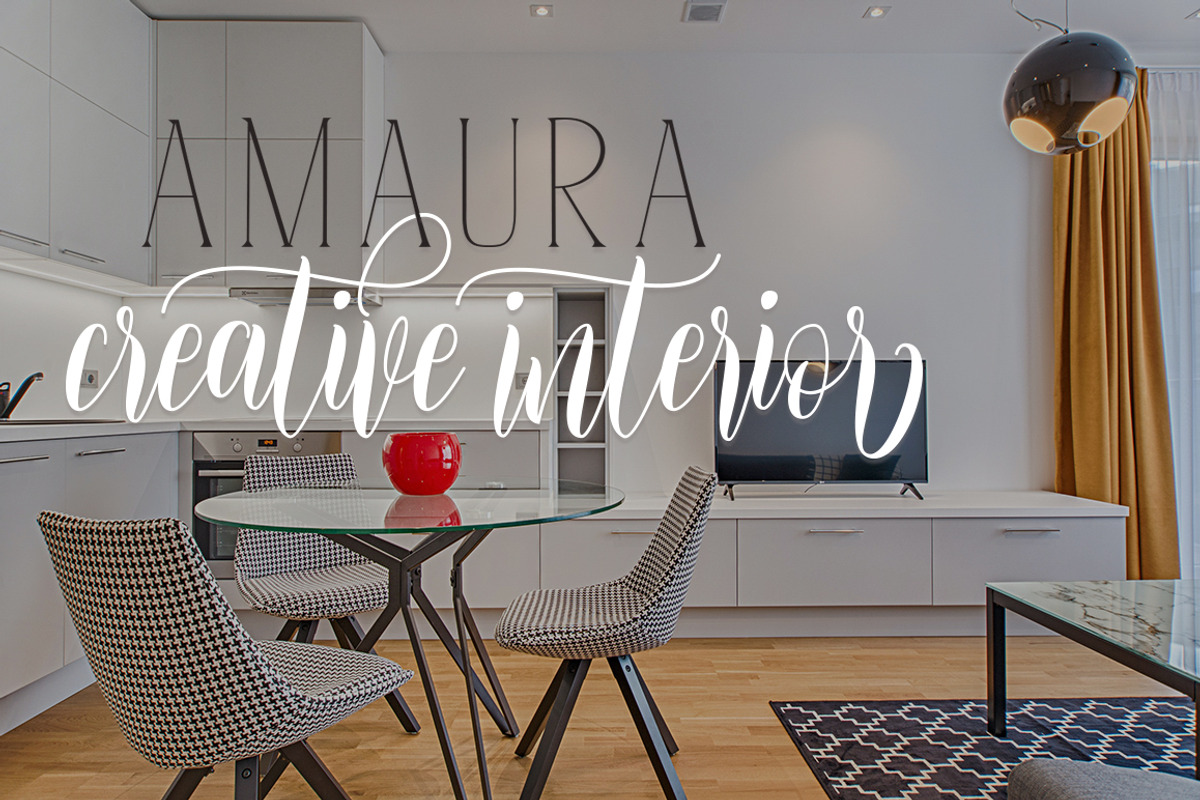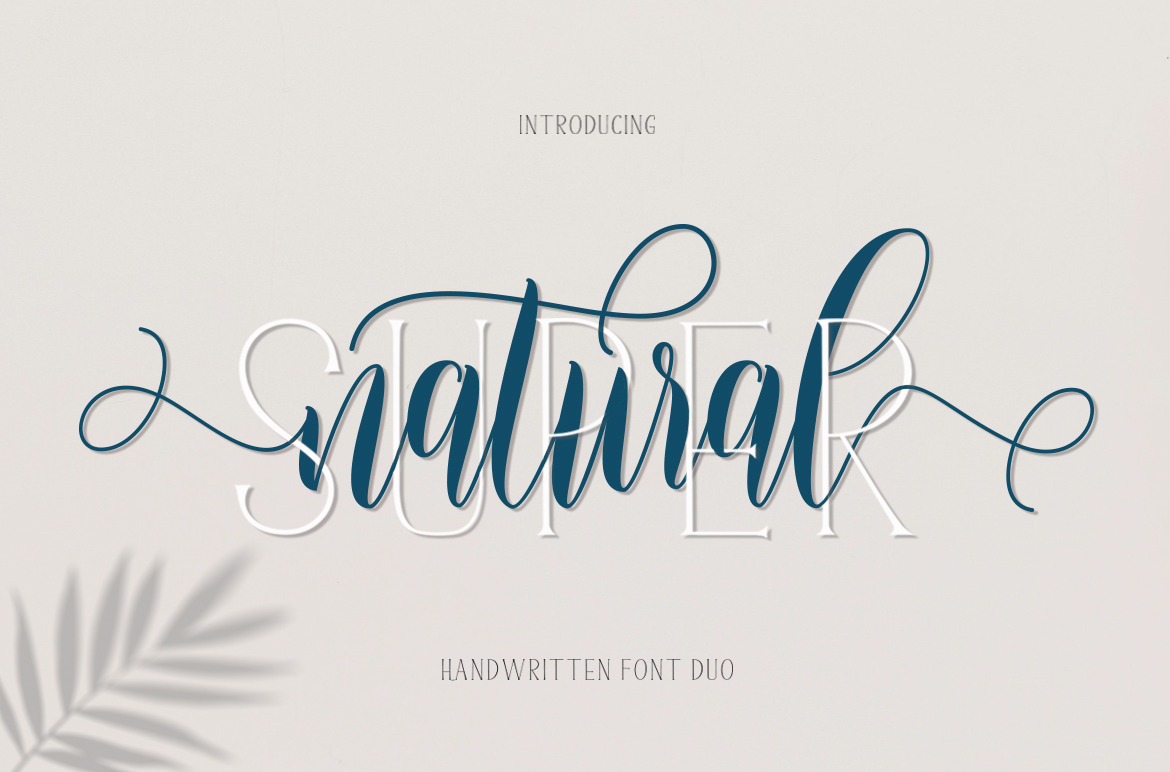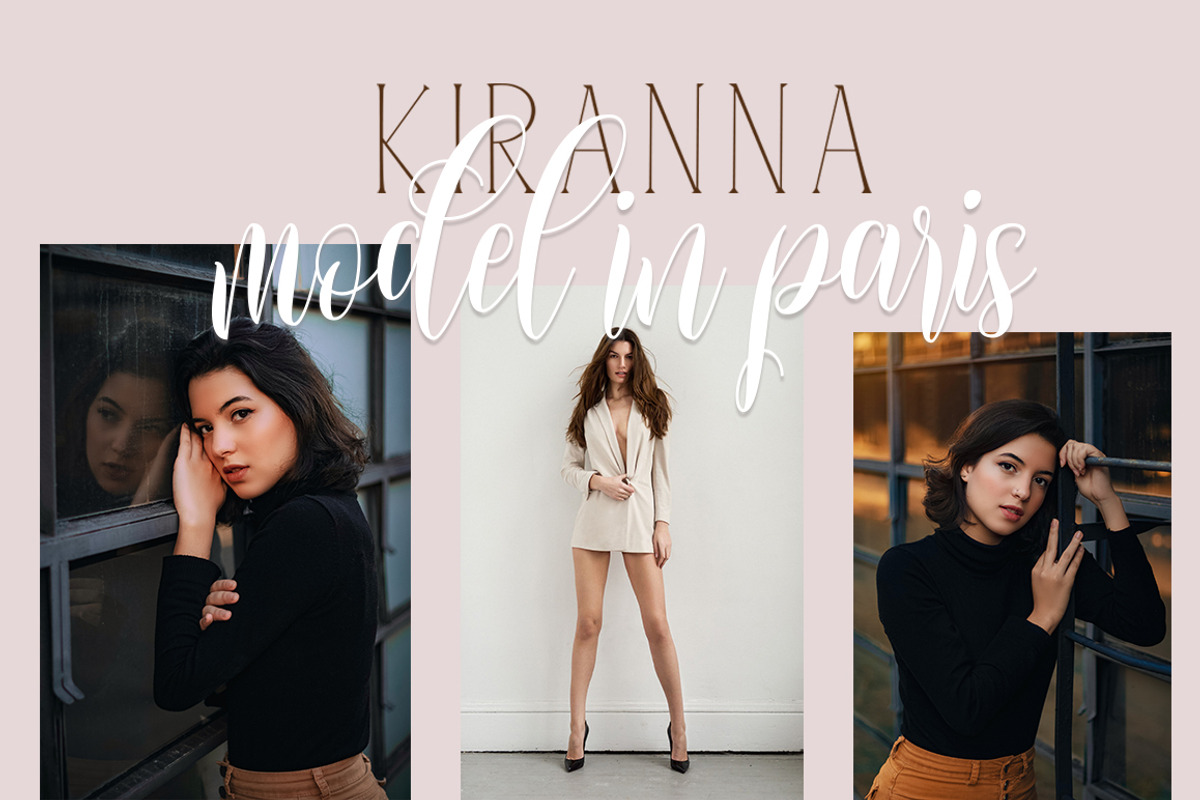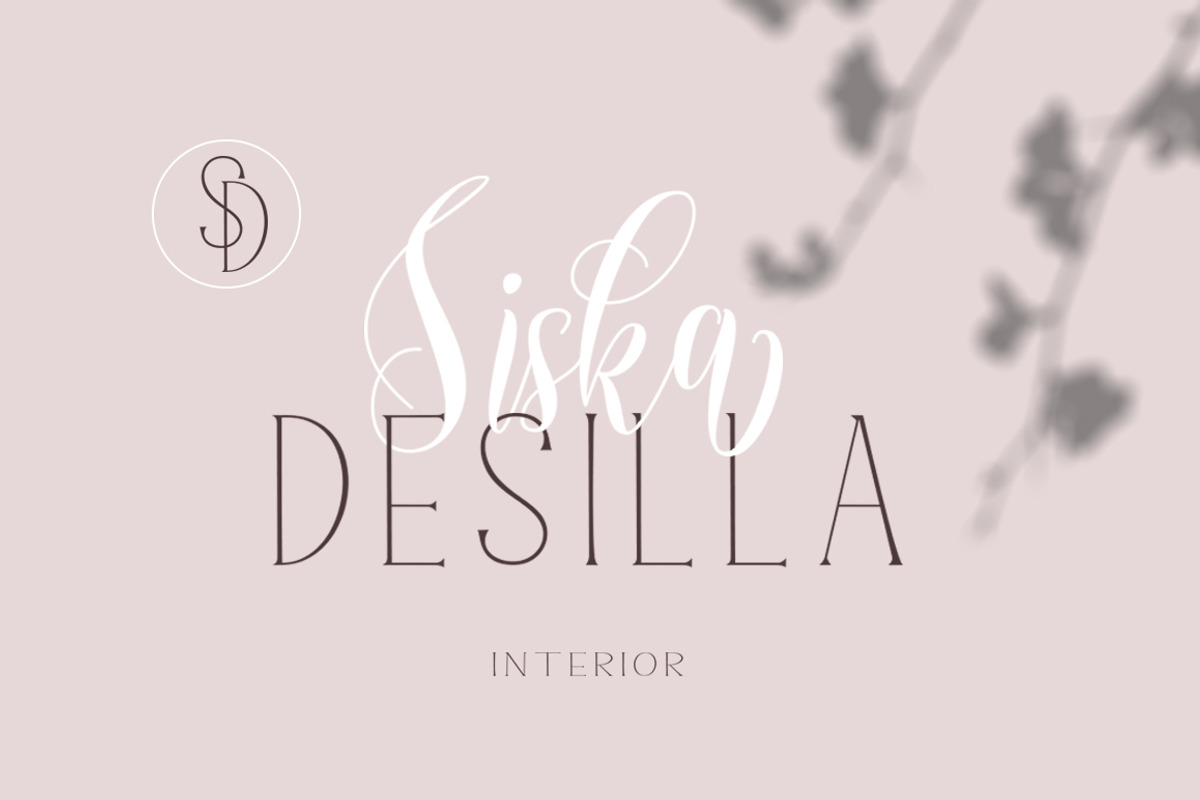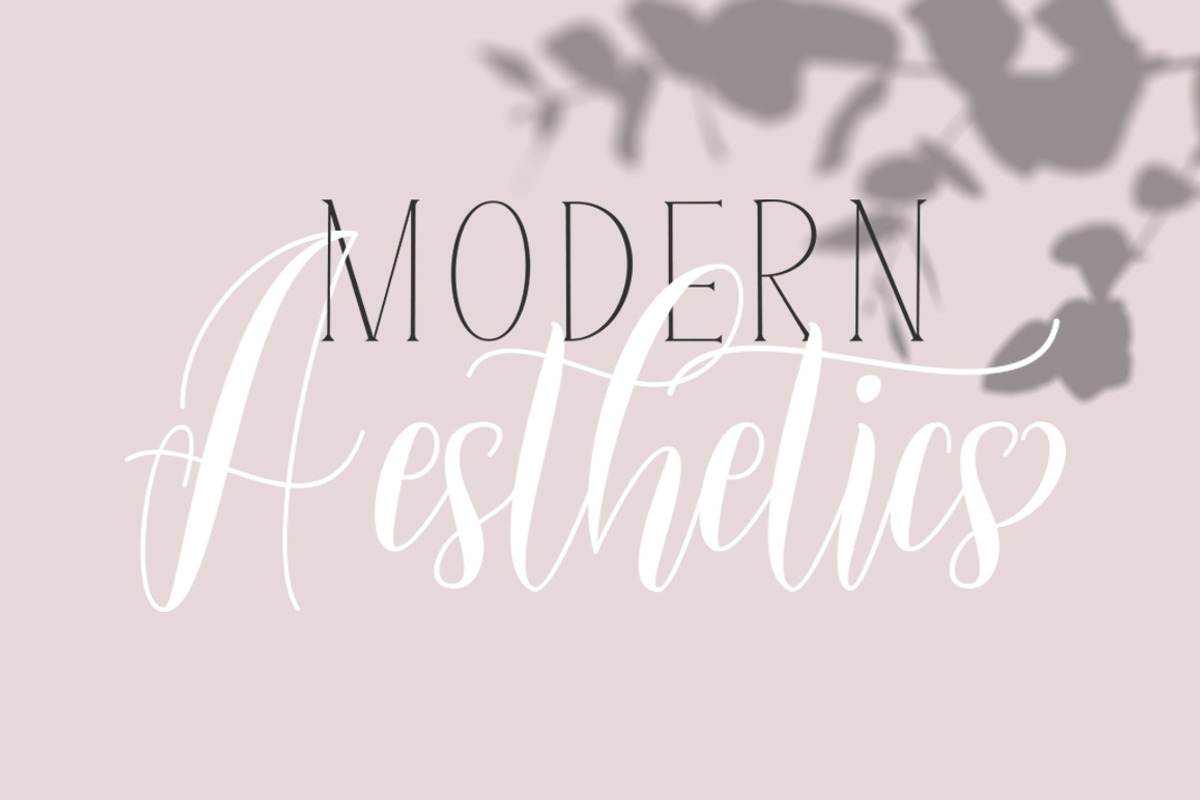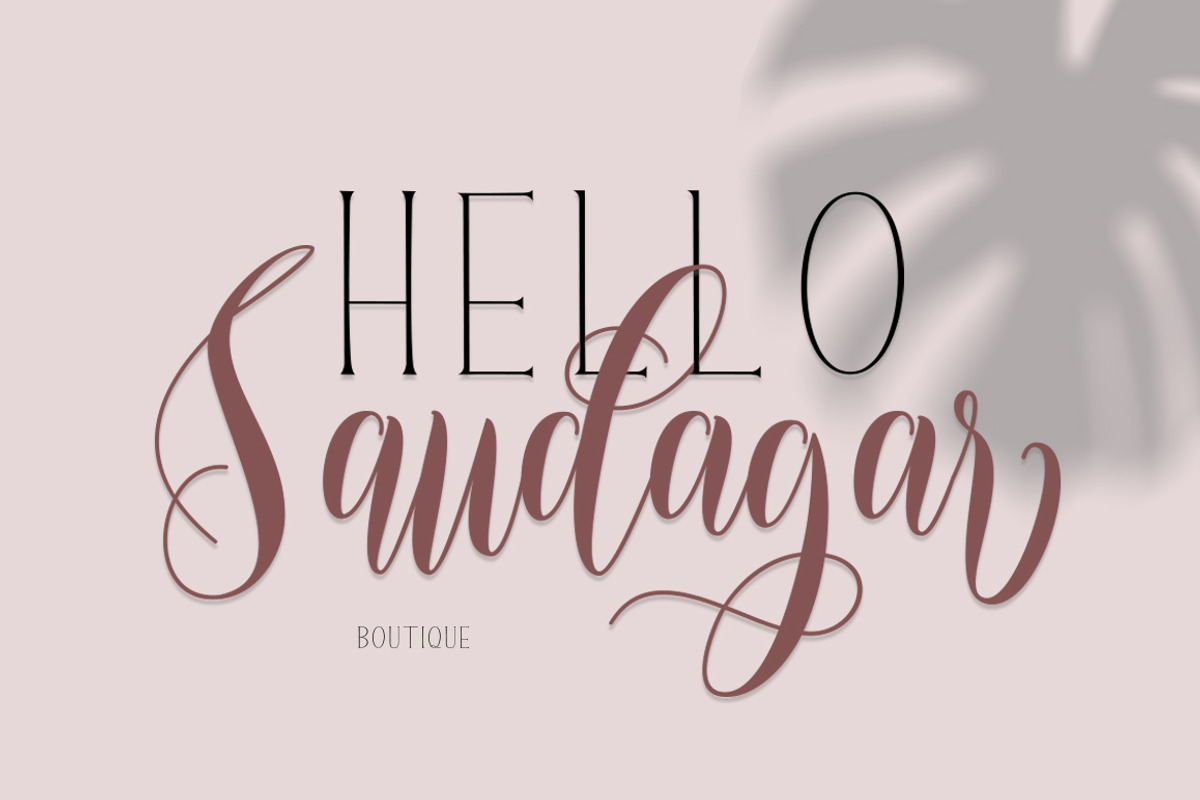
Super Natural Font Duo
Introducing Super Natural Script a new fresh & modern script with a handmade calligraphy style, decorative characters and a dancing baseline! So beautiful on invitation like greeting cards, branding materials, business cards, quotes, posters, and more!!